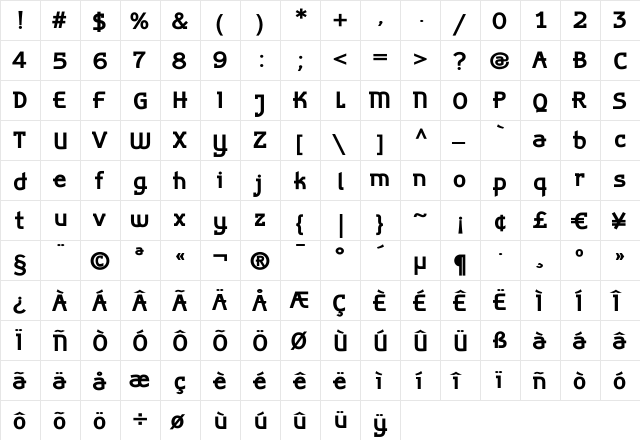
AlphaBravo Bold
Design Context for AlphaBravo Typeface
AlphaBravo takes a measured approach to typography — its balanced proportions and neutral character make it a reliable workhorse for both digital and print work. The heavy weight commands attention and anchors typographic hierarchies.